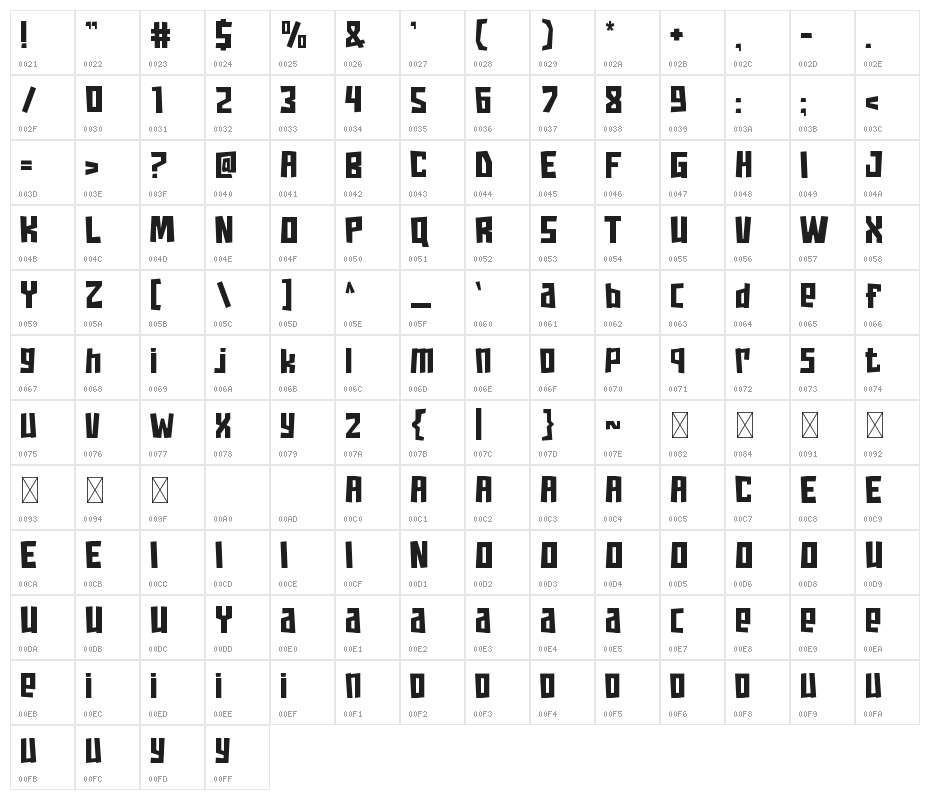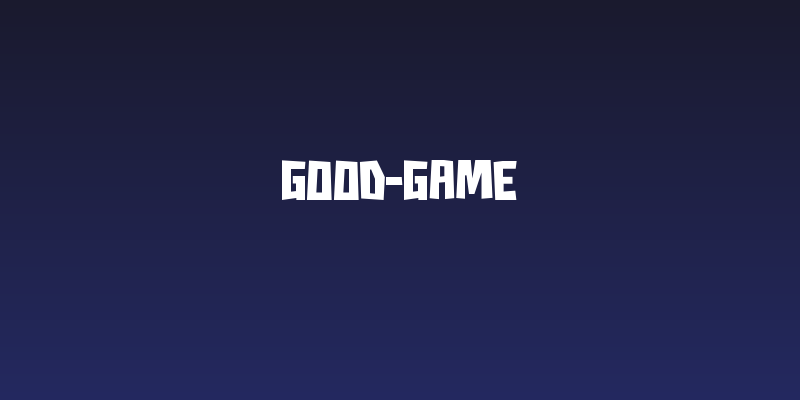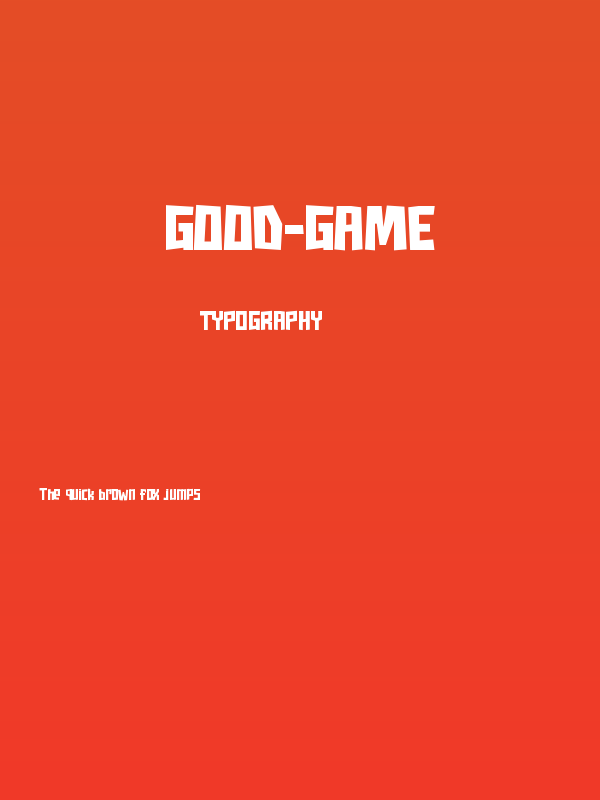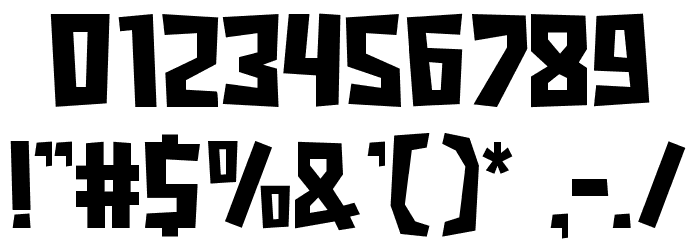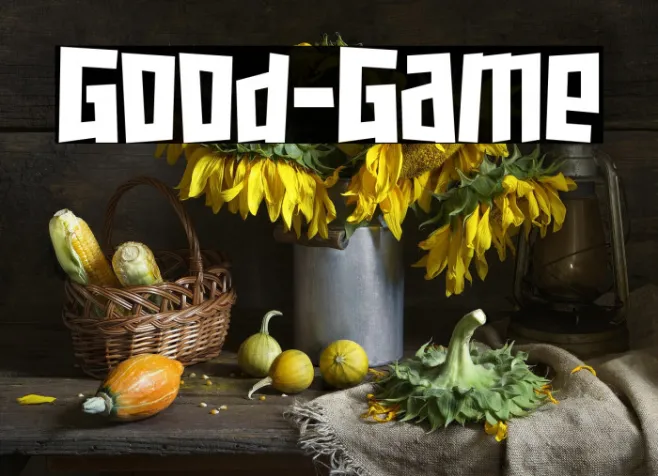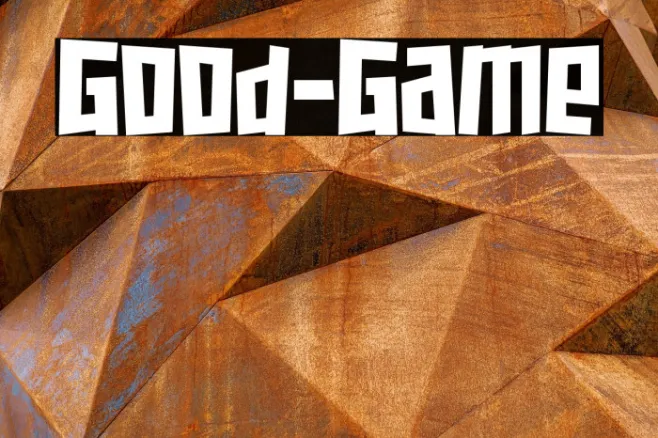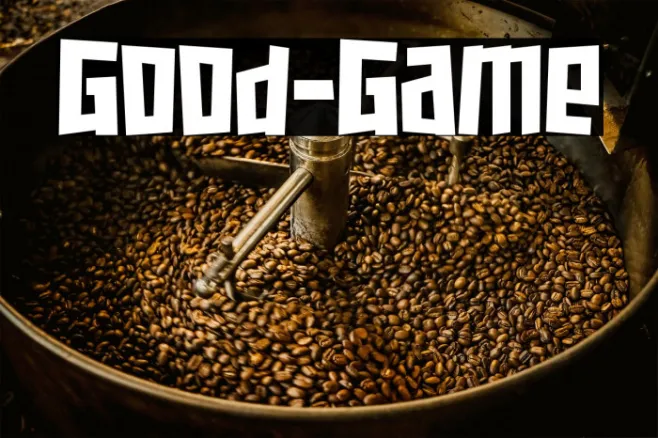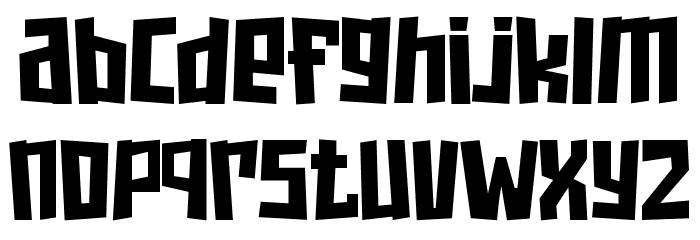
Good-Game Font
Good-Game Description
This font features a bold, angular design with a playful and energetic vibe. The characters are slightly irregular, giving it a hand-crafted appearance that adds a unique personality. The uppercase and lowercase letters maintain a consistent style, with sharp edges and varying stroke widths that create a dynamic look. The numbers and special characters follow the same design principles, ensuring a cohesive appearance across all glyphs. This font is ideal for projects that require a bold statement or a fun, engaging aesthetic.
| Proposed Projects | Perfect for video game titles, posters, branding for energetic products, and any project needing a bold, dynamic look. |